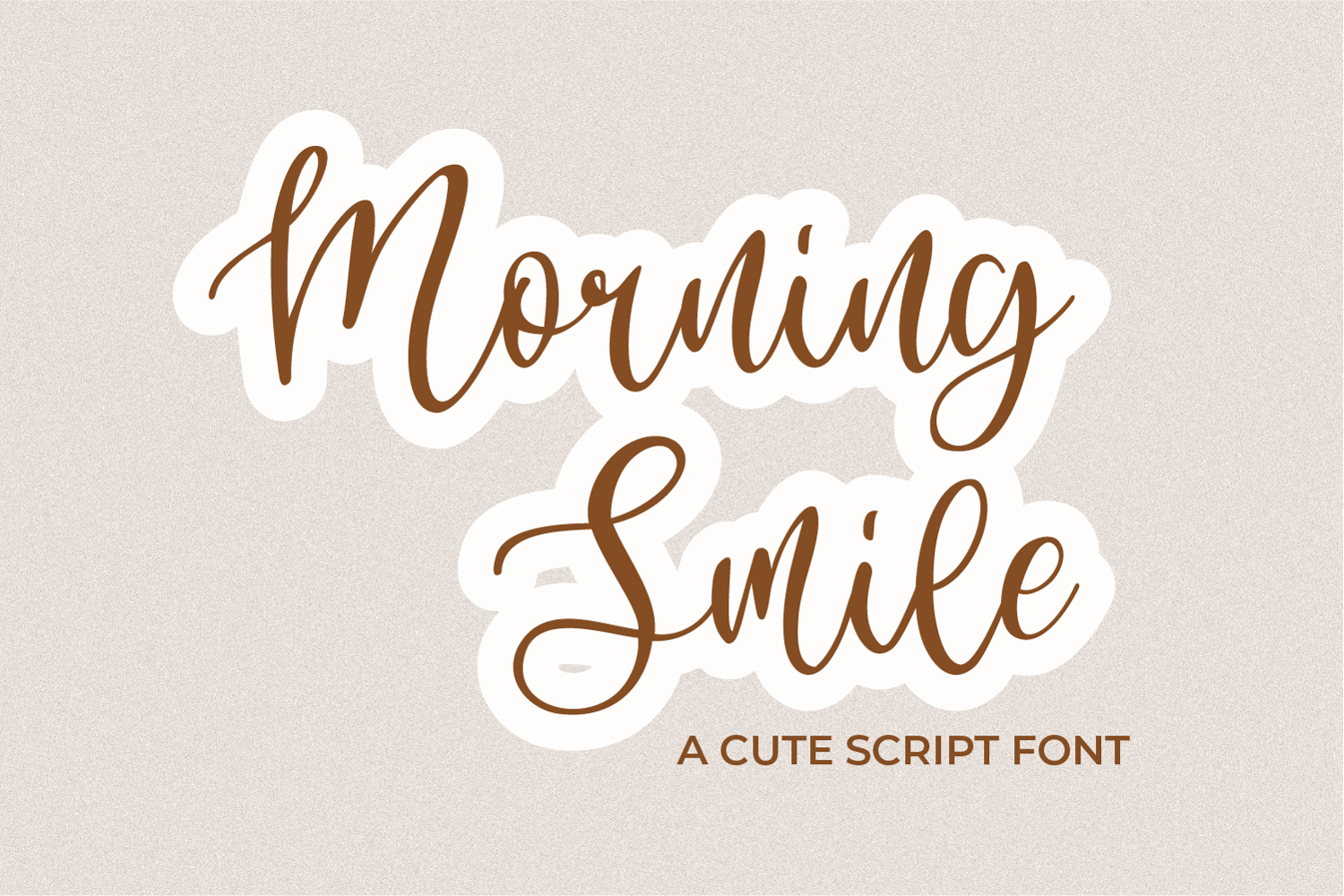
Morning Smile A Calligraphy Font
🌸 Morning Smile – Cute Handwritten Script Font 🌸
Add a touch of happiness to your designs with Morning Smile, a cute handwritten script font full of charm and warmth. Its smooth, playful strokes make it perfect for logos, invitations, Cricut projects, cards, and branding.